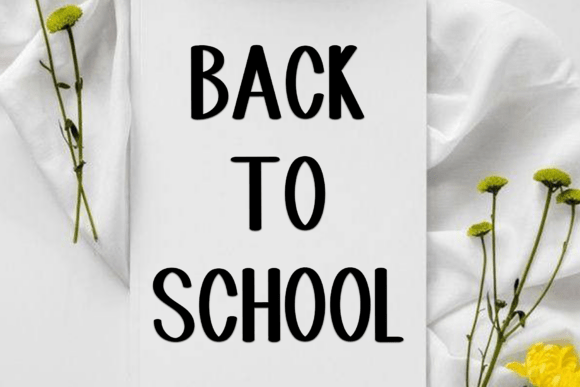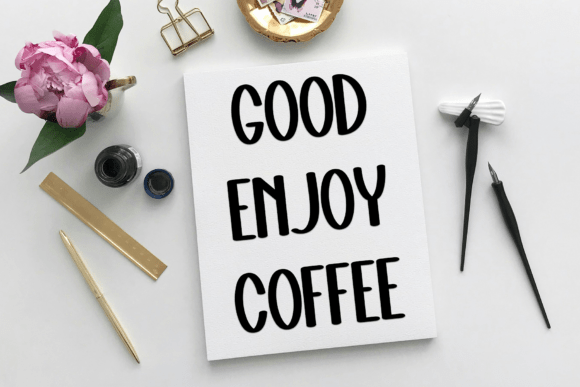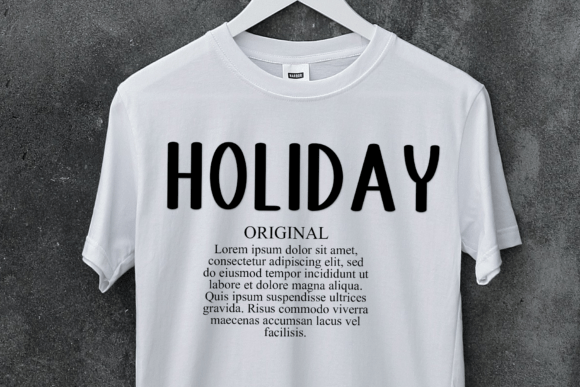
Introduction to School Rainder Font
School Rainder is a sweet and friendly handwritten font.
Why Choose School Rainder Font?
School Rainder Font offers exceptional quality and versatility, making it a valuable addition to your design toolkit. Whether you’re creating for personal projects or commercial use, School Rainder Font delivers professional results.